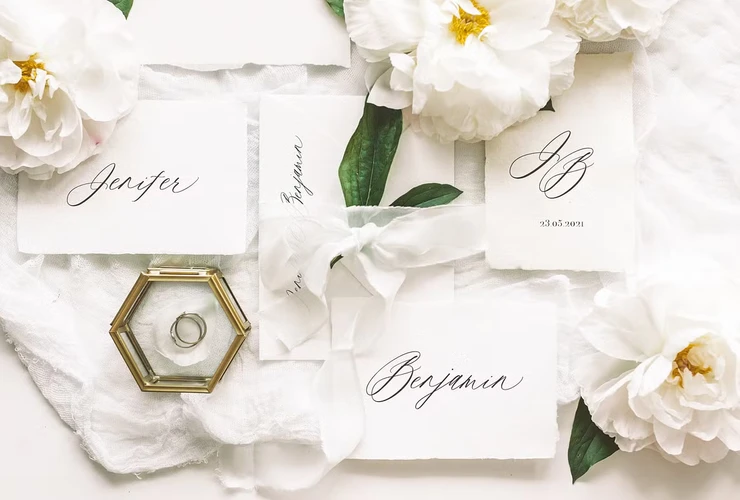
Introducing Saint Viet Regular: The Ultimate Modern Calligraphy Font
Hello, my friends! I am thrilled to introduce my latest and most comprehensive font creation yet—Saint Viet. This light, lovely, and modern calligraphy font boasts sophisticated flows that are perfect for adding a touch of elegance to your design projects. Whether you’re working on wedding invitations, save-the-date cards, or feminine branding, Saint Viet is designed to elevate your work with its beautiful script.
Key Features of Saint Viet
Saint Viet is packed with features that make it a standout choice for designers:
Comprehensive Character Set: Saint Viet includes a full set of uppercase and lowercase basic characters, numbers, and punctuation.
Ligatures and Stylistic Alternates: With more than 500 stylistic alternates, you can perfectly re-create natural calligraphy. Each uppercase letter has 2-5 different calligraphic alternates, and some letters even have up to 10 alternatives.
Multilingual Support: This script supports both Latin and Cyrillic alphabets, covering a wide range of languages, including but not limited to Albanian, Belarusian, Bulgarian, Croatian, Czech, Danish, Dutch, English, French, German, Italian, Polish, Portuguese, Russian, Spanish, and many more.
Enhance Your Designs with Saint Viet
Saint Viet is not just a font; it’s a tool to bring your creative visions to life. Its elegant and sophisticated flow makes it particularly well-suited for wedding invitations, save-the-date cards, and any project that needs a feminine and stylish touch.